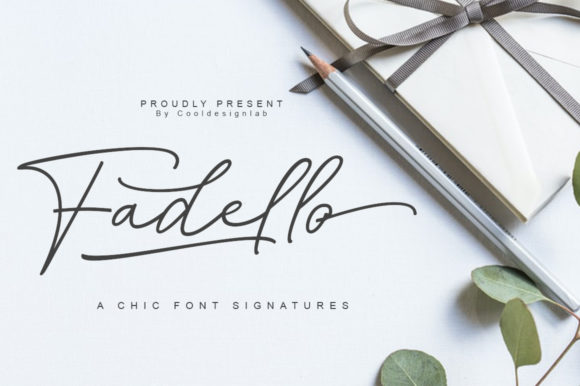
Fadello: A Script Font That Brings Warmth to Editorial Design
I was sitting on the floor of my home office, surrounded by printed drafts, sticky notes, and a growing sense that my lifestyle blog had lost its voice. The content was strong, the photography was evolving, but something felt off. It was the typography. My headers were using a generic sans serif that looked clean but said nothing about who I was as a writer. I needed a font that felt like me—warm, thoughtful, a little elegant, but not stiff. That is when I opened a folder of design assets a friend had recommended and found Fadello.
The moment I typed my blog name in Fadello, I knew something had shifted. The swashes curled naturally at the ends of letters, and the ligatures joined characters in a way that felt almost handwritten. It was not trying to be flashy. It was simply beautiful. For someone who spends hours thinking about how a page should feel, that quiet moment of discovery is everything.
The Personality Behind the Letters
Fadello draws from classic typography traditions, but it does not feel dated. There is a gentle rhythm to its strokes, a kind of calligraphic poise that makes you want to read what it says. The swashes are generous without overwhelming the letterforms, and the ligatures tie words together with a natural flow. This is not a font that shouts for attention. It invites you in.
As a blogger and small publisher, I have tested dozens of script fonts over the years. Many are either too rigid—perfectly constructed but cold—or too loose, breaking apart on screen. Fadello sits in a rare middle ground. It has structure, but it breathes. The ascenders reach high enough to give words a lifted quality, and the descenders drop with a deliberate grace. It feels like a premium font without being pretentious.
The versatility surprised me. I expected a script font to work only for big display headlines or logo design. But Fadello holds up in smaller sizes too, especially when you use the alternate glyphs and ligatures to adjust the texture of a word. That flexibility matters when you are designing across formats—blog headers, newsletter graphics, ebook covers, and printed guides all demand different things from a typeface.
Building a Better Blog Header
My blog has always been about slow living, seasonal recipes, and mindful reading. The old header used a bold sans serif that felt efficient but not warm. Switching to Fadello changed the entire mood of the homepage. The title now sits in Fadello with a soft serif font for the tagline underneath—a pairing that creates both contrast and harmony. The swash on the capital F wraps slightly under the next letter, giving the whole word a sense of motion.
For article titles, I use Fadello at a medium weight with one of the decorative ligatures activated. It makes each headline feel like a hand-lettered sign. The font does not compete with the body copy; instead, it sets a tone that carries through the entire article. Readers have commented that the site feels more like a magazine now, which was exactly the effect I wanted.
From Digital to Print: A Recipe Ebook
I recently compiled a collection of autumn recipes into a small ebook for my newsletter subscribers. The cover needed to feel cozy and inviting—think warm spices, knit blankets, long afternoons in the kitchen. Fadello became the obvious choice for the title. I paired it with a clean serif font for the subtitle and a neutral sans serif for the back cover copy.
The result was a cover that looked like it belonged on a bookstore shelf. The swashes added a handmade quality that complemented the rustic food photography I had chosen. Inside the ebook, I used Fadello for chapter openers and pull quotes. Each chapter title begins with an enlarged initial letter, and the ligatures ensure that the word reads as a seamless whole. For longer text, I switched to a highly readable serif font, letting Fadello do what it does best: draw attention at key moments.
When I exported the ebook as a PDF for print, the font held its integrity beautifully. The curves remained smooth, the swashes stayed crisp, and the overall layout felt cohesive. That is often where a display font reveals its limitations, but Fadello handled the transition from screen to paper without losing any of its charm.
Newsletter Graphics That Feel Personal
My weekly newsletter is sent to a modest but engaged audience. I used to design the header graphic in a standard script font, but it always looked a bit generic. After switching to Fadello, I noticed a subtle shift in how subscribers responded. The font gave the newsletter a consistent, recognizable identity. People started mentioning the design in replies, saying the emails felt more like a letter from a friend than a broadcast.
I now use Fadello in the newsletter title, in section dividers, and for the signature line at the bottom. The font’s natural rhythm makes even a simple thank-you note feel intentional. For mobile readers, the letterforms remain legible at medium sizes, which is critical for newsletters that are read on phones during a morning commute. I keep body text in a clean sans serif font for readability, but the headers and accent lines get the Fadello treatment.
I have used it now for several months, and it has not lost its appeal. The swashes still make me smile when I see them in a headline. The ligatures still tie words together in ways that feel surprising and right. It is a font that does not just sit on the page—it becomes part of the reading experience. And for anyone who cares about how their words are received, that is the truest measure of a great typeface.